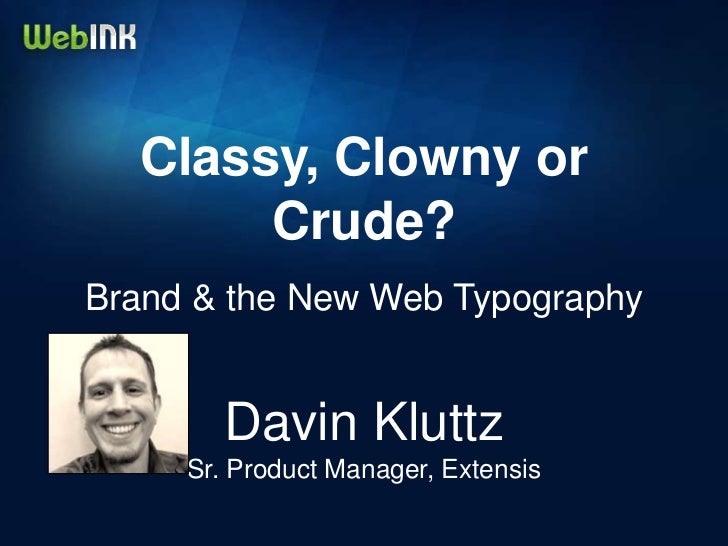
Classy, Clowny or Crude? Brand and the New Web Typography
Did you know that your site’s typography says as much about your brand as all of the other graphic elements on your site? Website design is both an art and a technical skill, and every element down to the typeface communicates volumes about your brand. Through the combination of graphics and text, your brand can be presented elegantly, or make you look like a complete fool. Do you know what your site’s typography is communicating? Don't get caught with your virtual pants down by using a font that isn’t right for your brand.
This session will help you understand how web typography affects your website, and how you can select and implement web typography that is just right for the job.
5 Questions that the session will answer
1. How does a website’s typography affect its brand perception?
2. How can common web typography mistakes be easily identified?
3. How can fonts be chosen to best fit a brand?
4. Where can web fonts be easily located?
5. What are the technical hurdles that are solved by using web fonts?
The target audience is intermediate web designers who want to include or improve their use of web fonts in their designs.